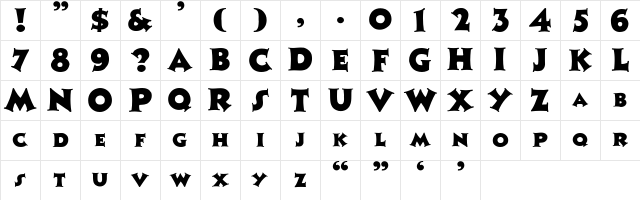
Zaleski Capitals Regular
Design Context for Zaleski Capitals
Zaleski Capitals is a composed and adaptable typeface that performs quietly and consistently across a wide range of design contexts.
Pro Tip: Use Zaleski Capitals in both headline and body roles to test its range before committing to a single application.